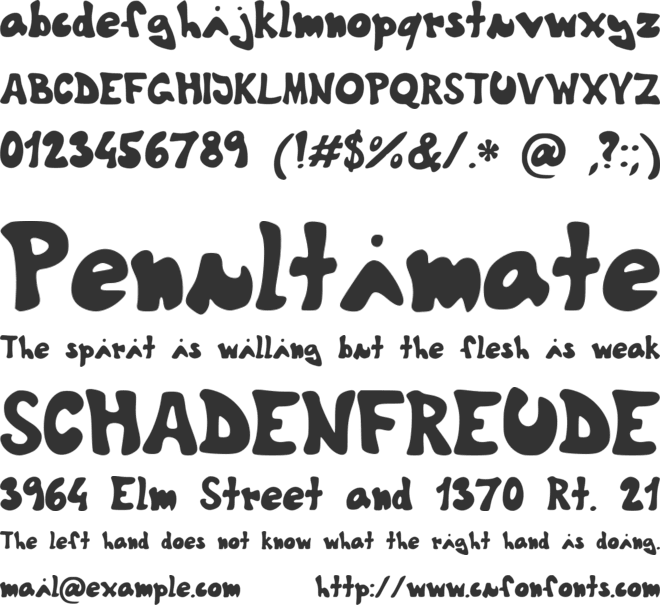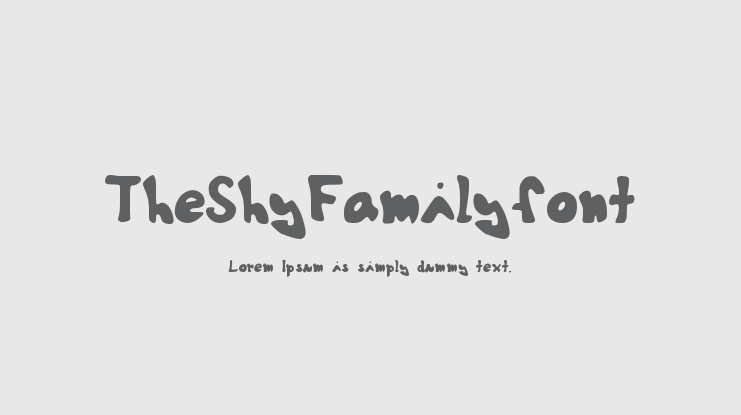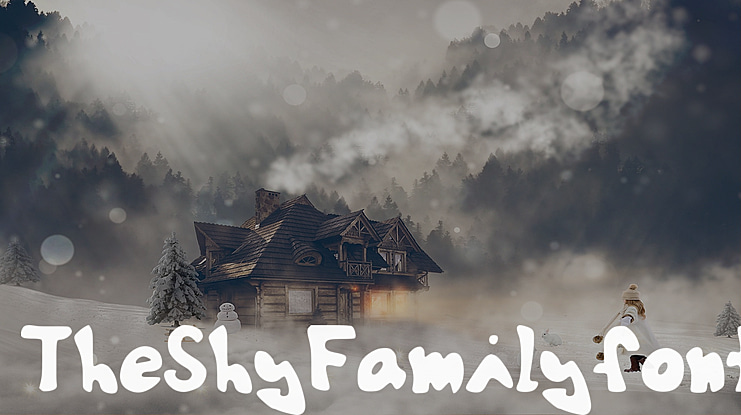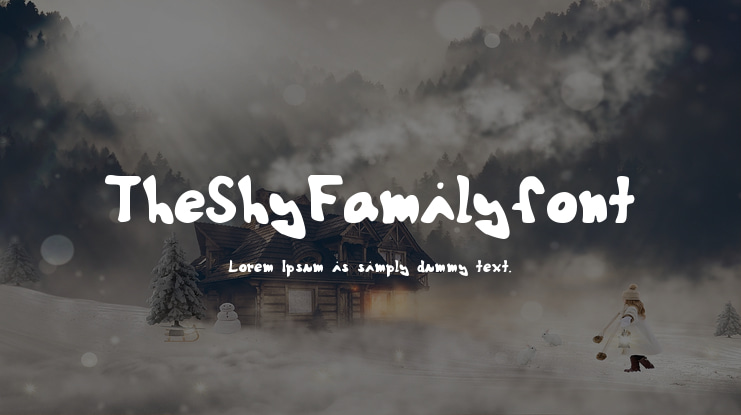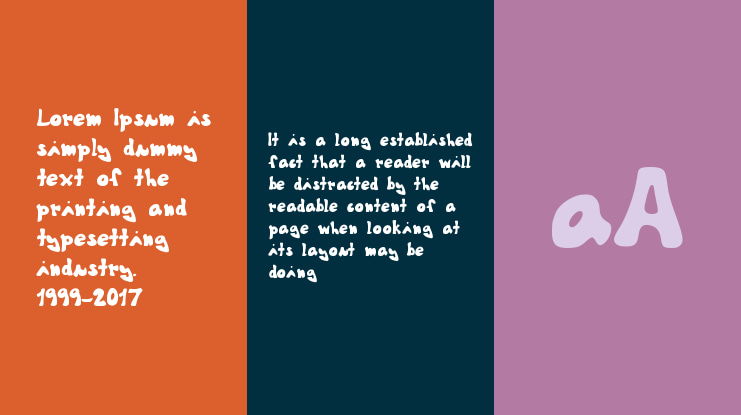
TheShyFamilyfont Font Family
Font is created by Sabrina Jozová aka Angi Shy The font will be used in the future for my comic and cartoon show called The Shy family.